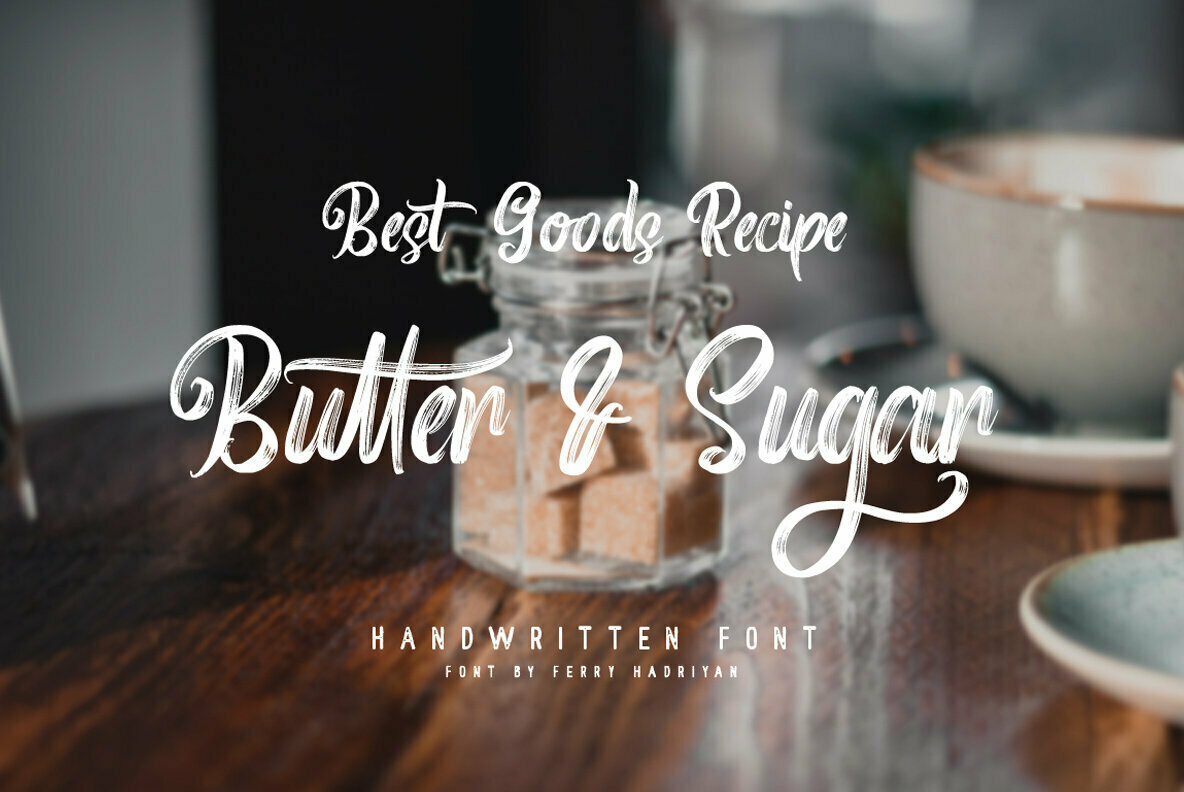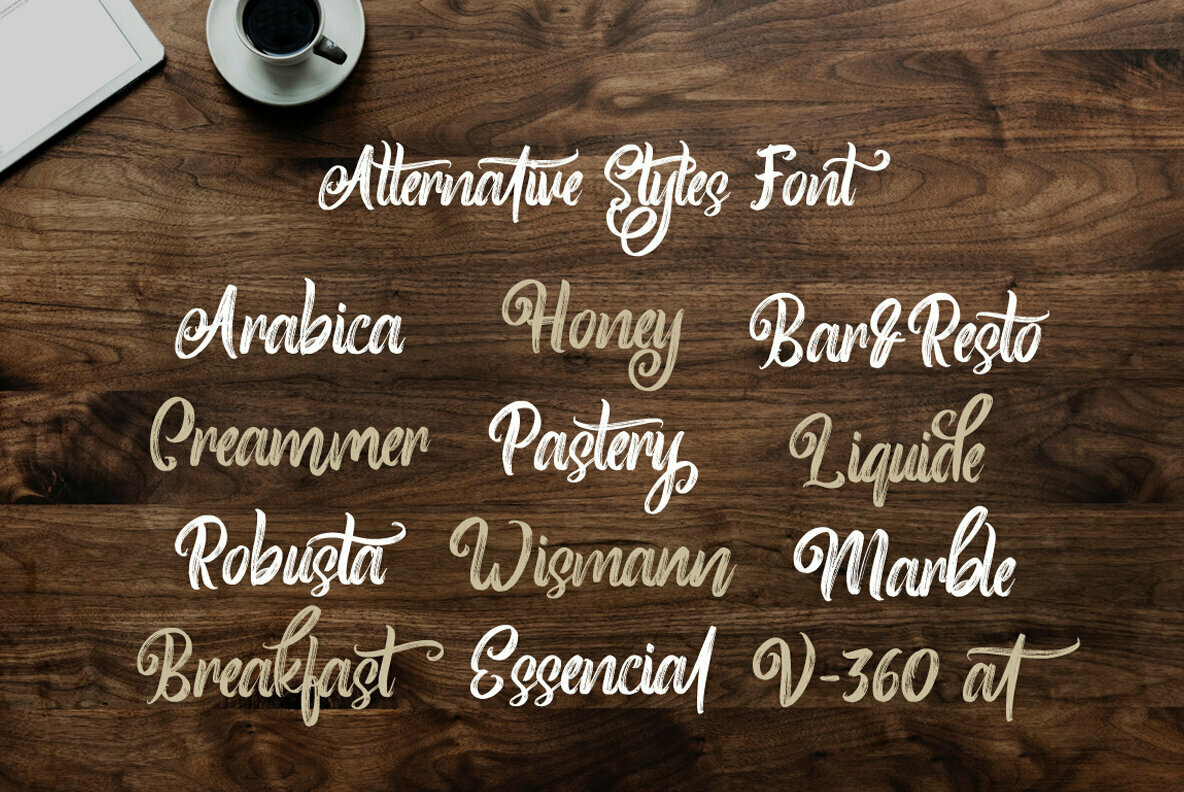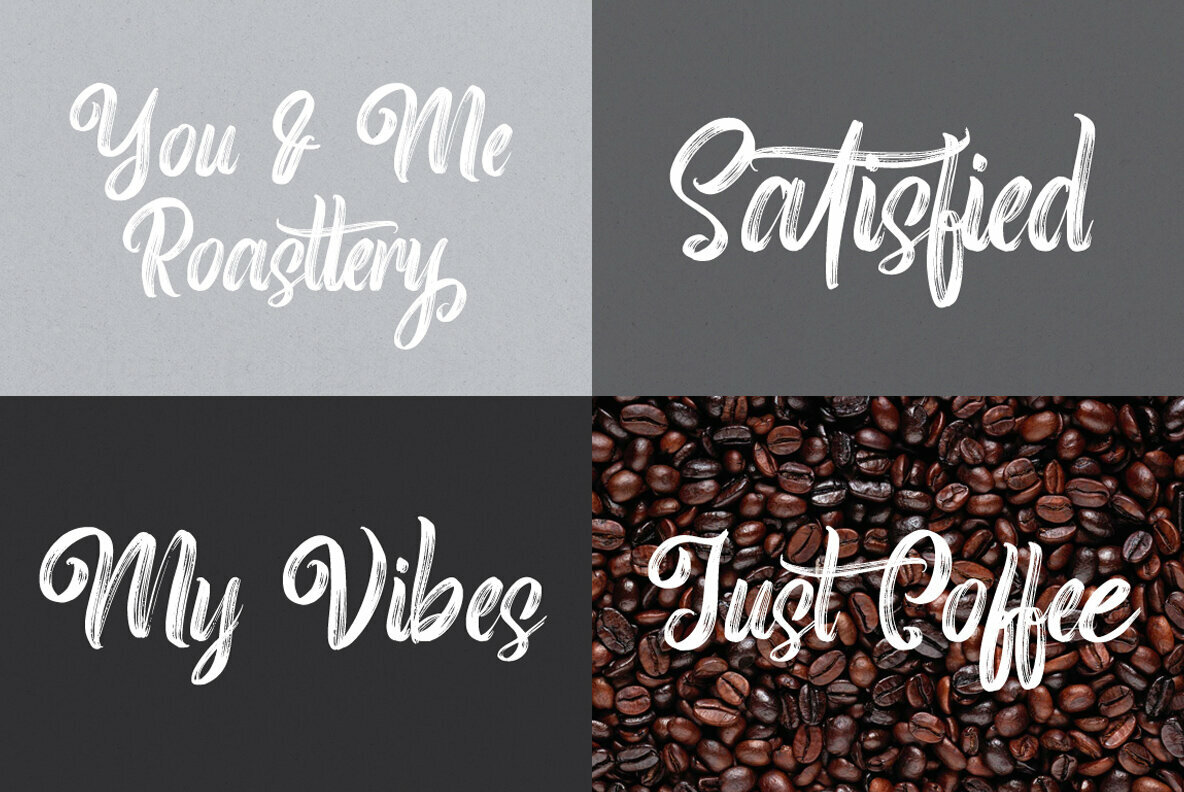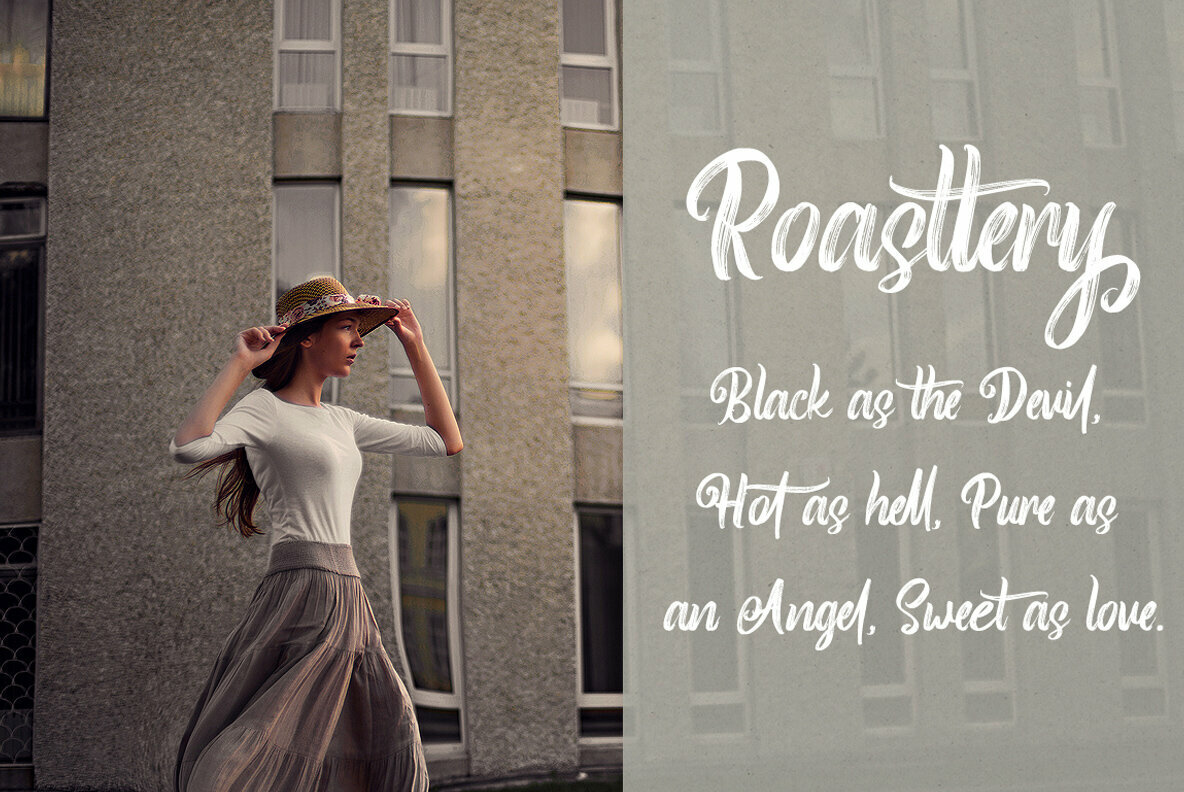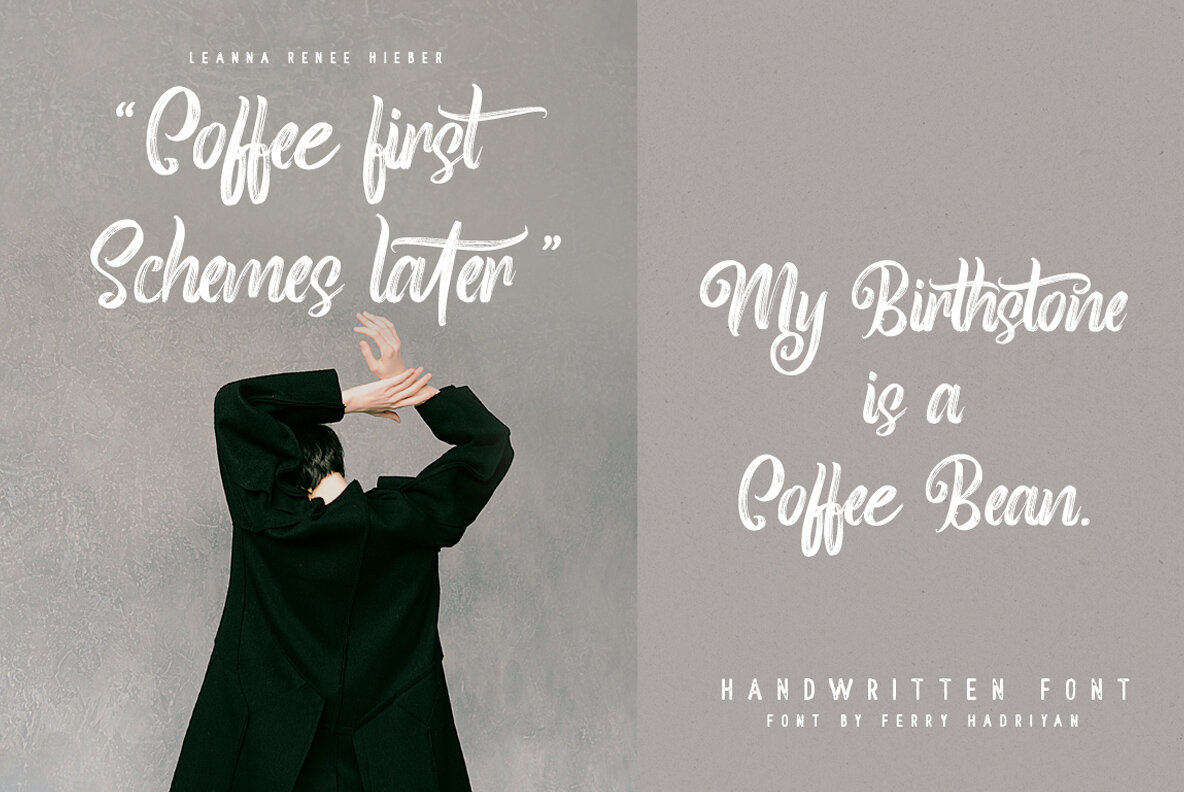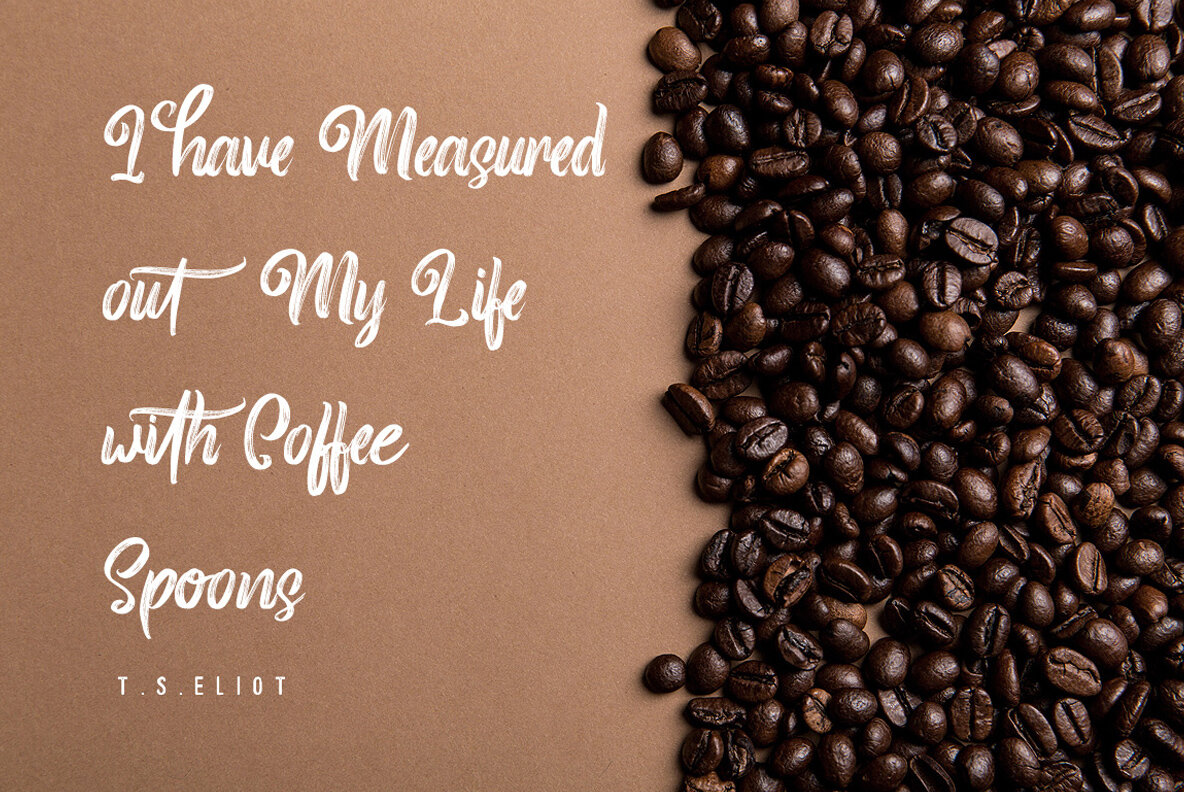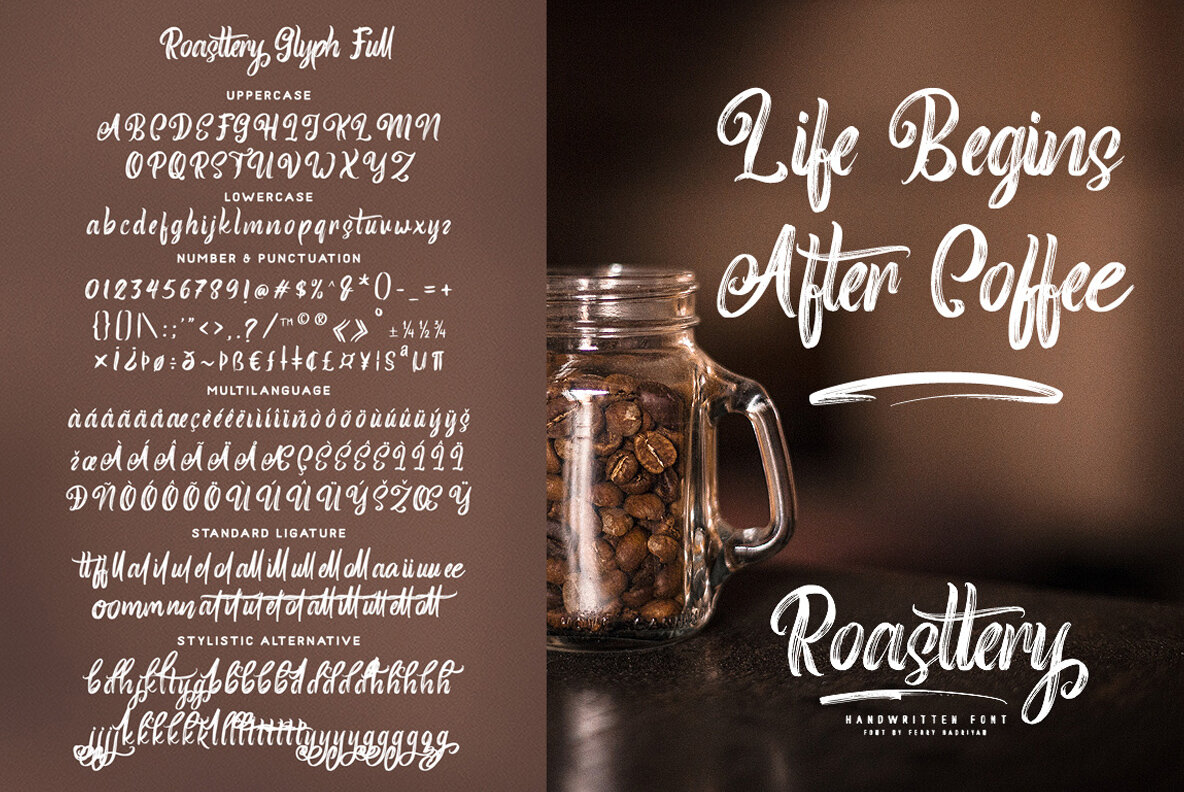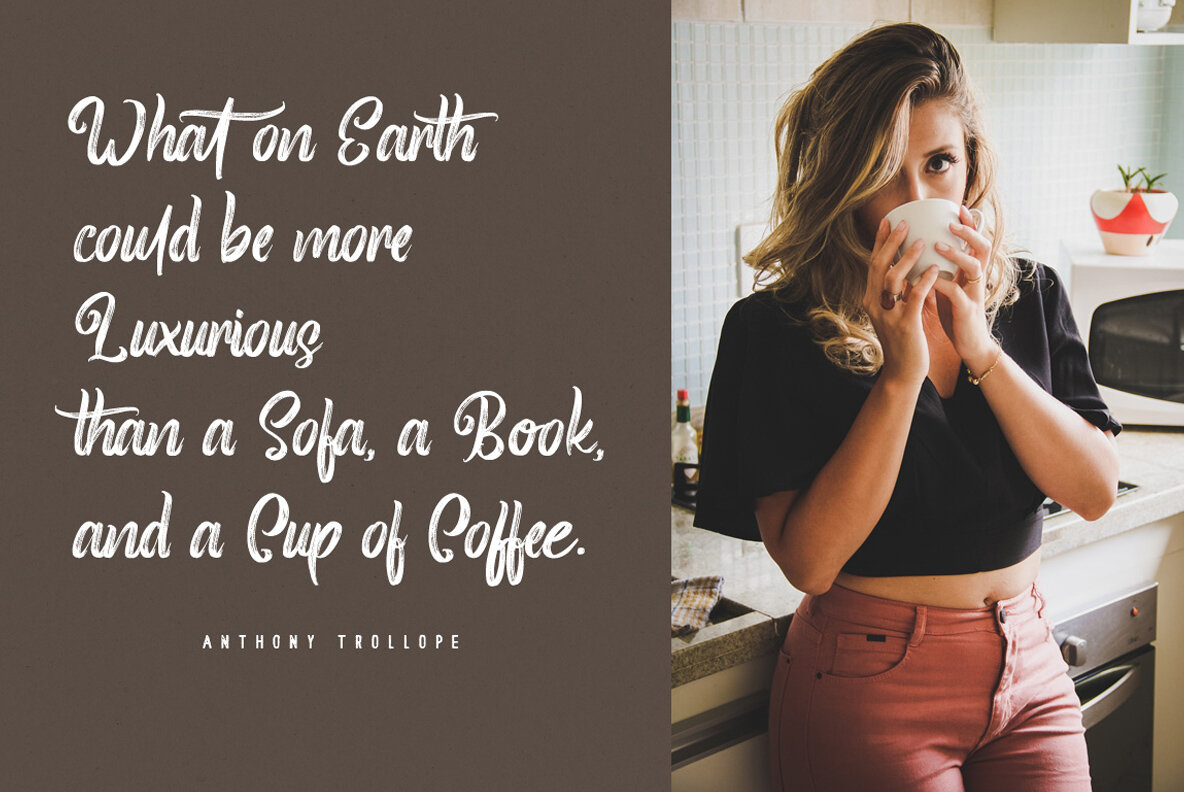
Roasttery Font
Roasttery captures the essence of traditional handlettering with its script style, offering a unique brush texture that enriches any creative project. Designed with versatility in mind, this font is perfect for personalizing your design endeavors, whether it be for weddings, events, t-shirts, logos, or any project demanding an artistic flair.Roasttery: Authentic Script with Brush Handlettering